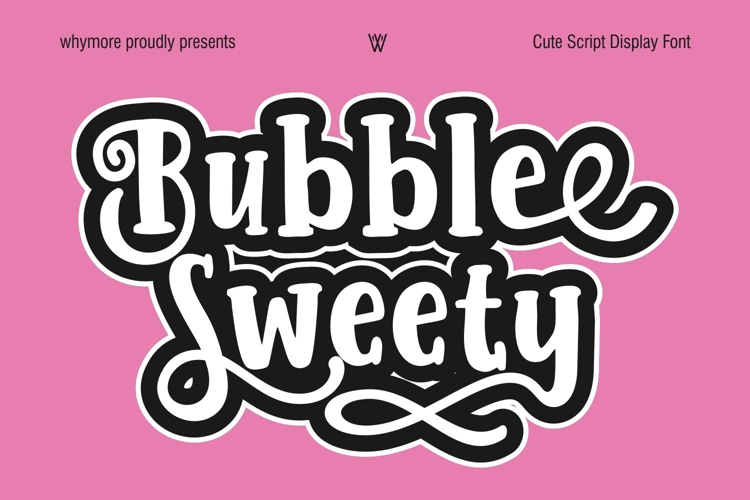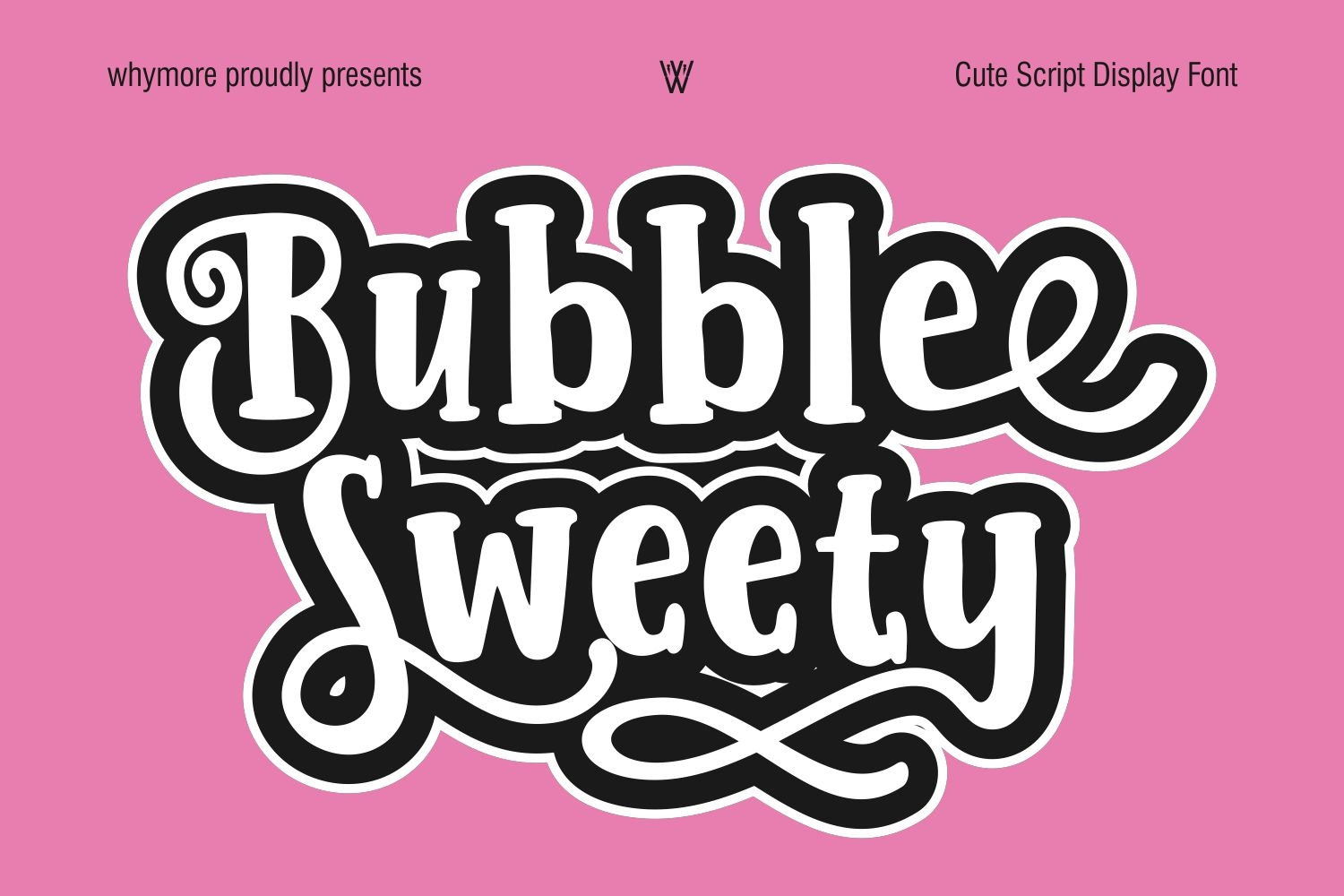
Bubble Sweety is a cute script display font featuring bold rounded letterforms, playful swashes, and a cheerful handcrafted style. Perfect for kids branding, t-shirt designs, stickers, packaging, logos, birthday invitations, social media, posters, crafts, and fun merchandise.
Uppercase & Lowercase
Numbers & Punctuation
Multilingual Support
Stylistic Alternates
Ligatures
Bubble Sweety